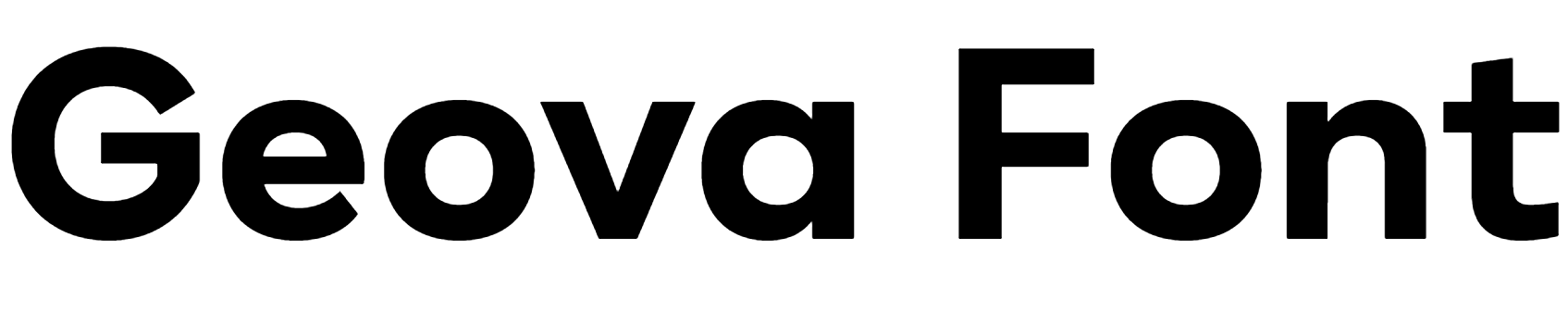
Geova
Geova is a sans serif font designed by Eko Bimantara (2025). Its clean letters skip the little "feet" (serifs) of traditional type, so it looks modern and reads well on screens. The free download includes eight styles, and you can try every one of them with your own text in the preview above.
Geova Font Details
- Designer: Eko Bimantara
- Font styles: 8 (Regular, Thin, Light, Medium, Bold, Semi Bold, Extra Bold and Black)
- Weights: Thin (100) to Black (900)
- Glyphs: 428 in the Regular style
- OpenType features: Ligatures (including optional ones) and fractions
What You Can Type With Geova
You get every letter from A to Z in both cases and all the numbers from 0 to 9, which means Geova can handle full sentences, dates and prices. Common punctuation such as &, !, ? and @ is included as well. It also has the accented letters you need for Spanish, French, German, Portuguese and Italian.
Where Geova Works Best
Think of Geova for websites, app screens and clean logos. It works for headings and body text alike. If the download has several weights, use a heavier one for titles and a lighter one for paragraphs. Because the family has more than one style, you can mix them in a single design for headings, subheadings and highlights.